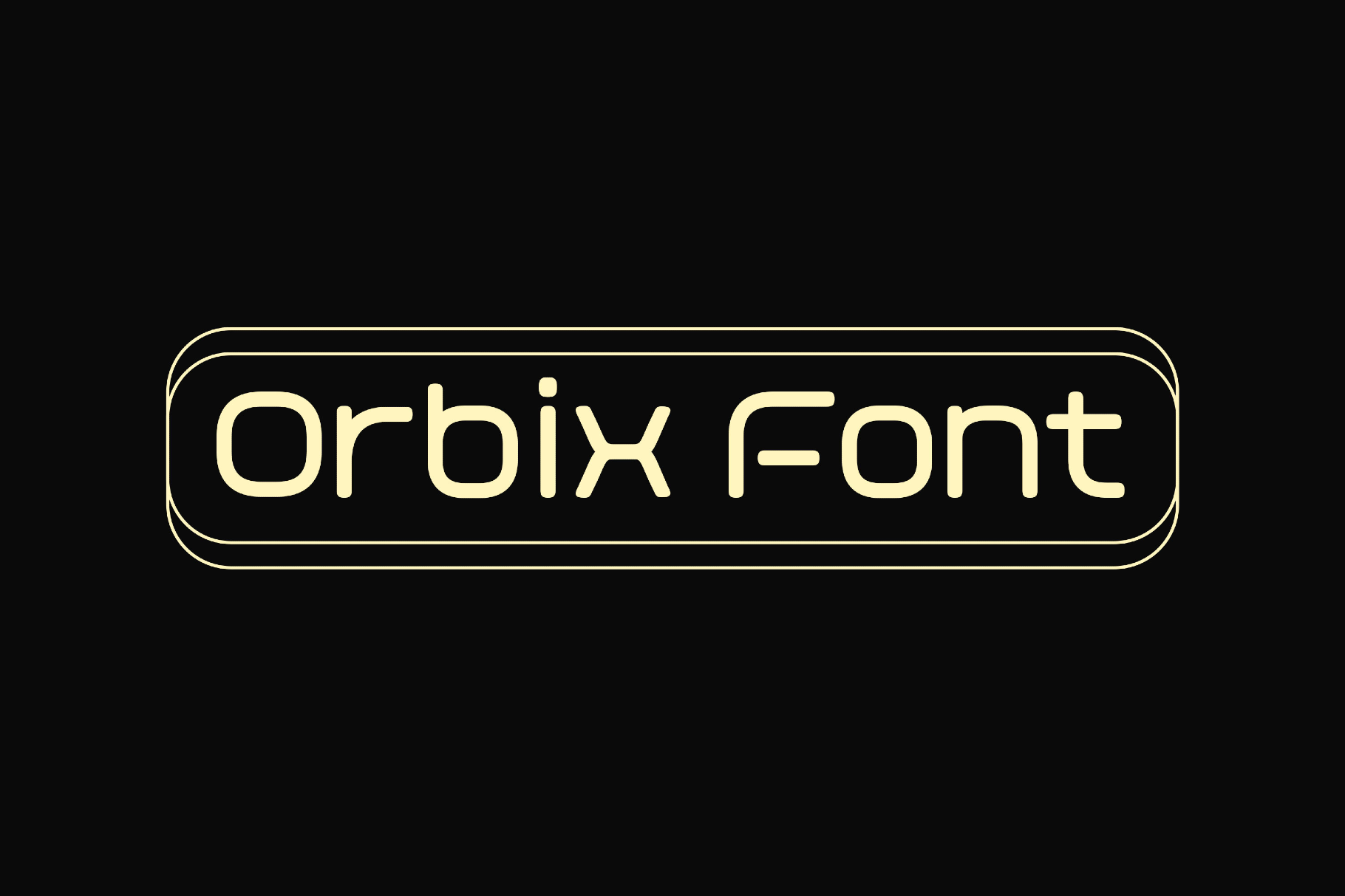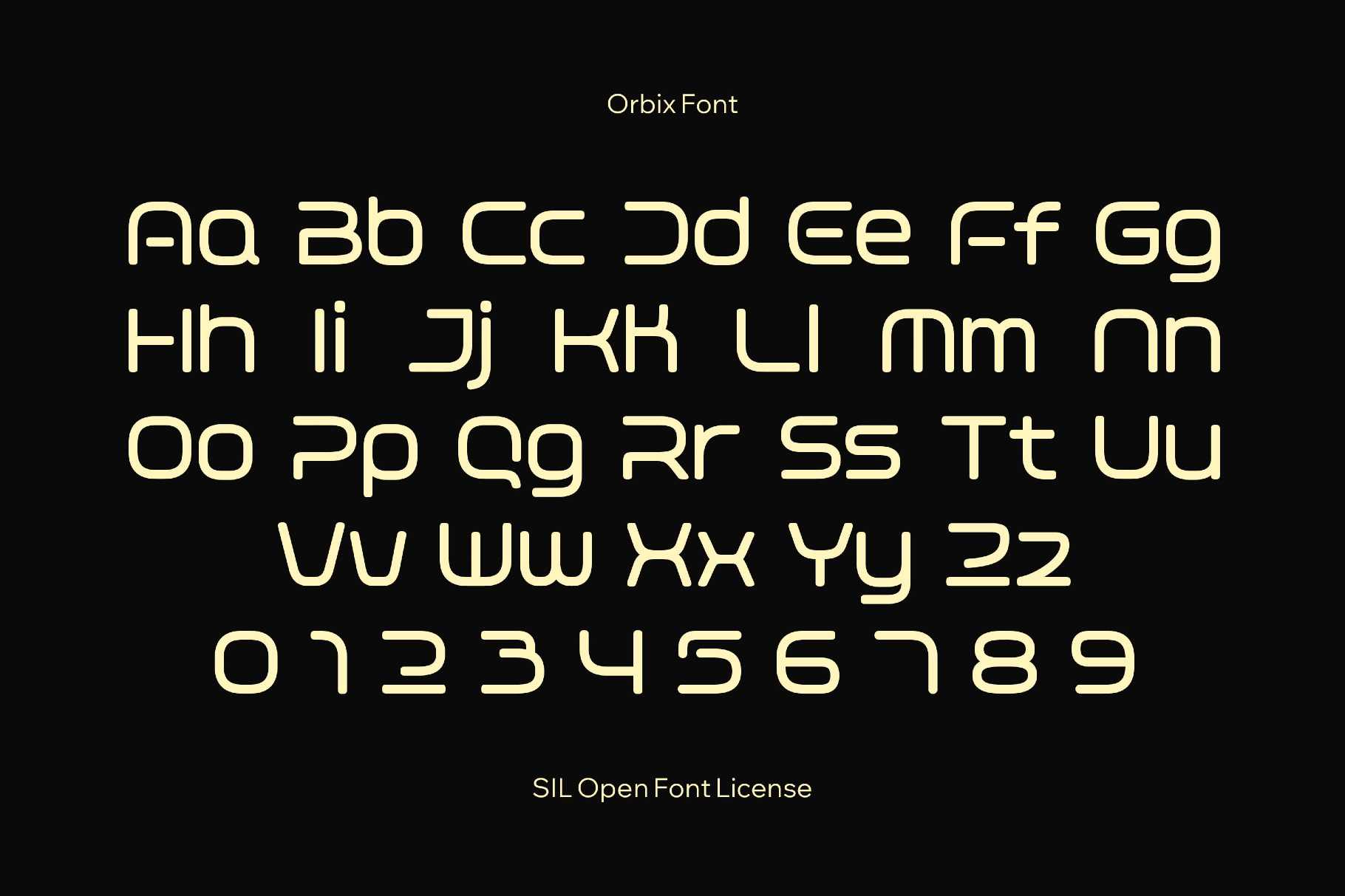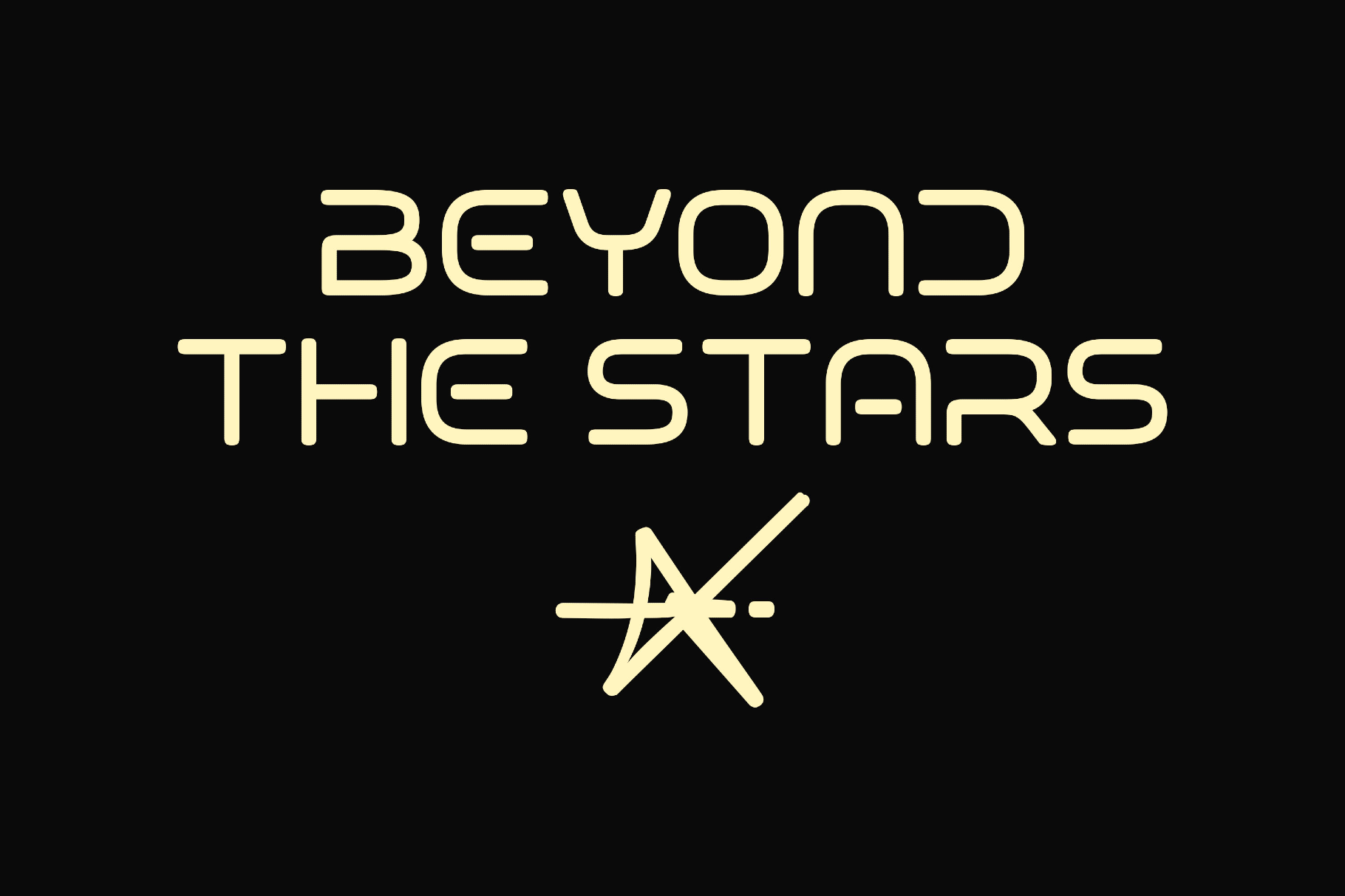
Orbix Space Font
Orbix reveals Y2K-era interface graphics and arcade branding through its rounded square shapes. This font looks quirky, synthetic, and surreal in the way of early digital culture. It works well for logos, short headlines, interface labels, poster details, game menus, event visuals, and merch graphics.